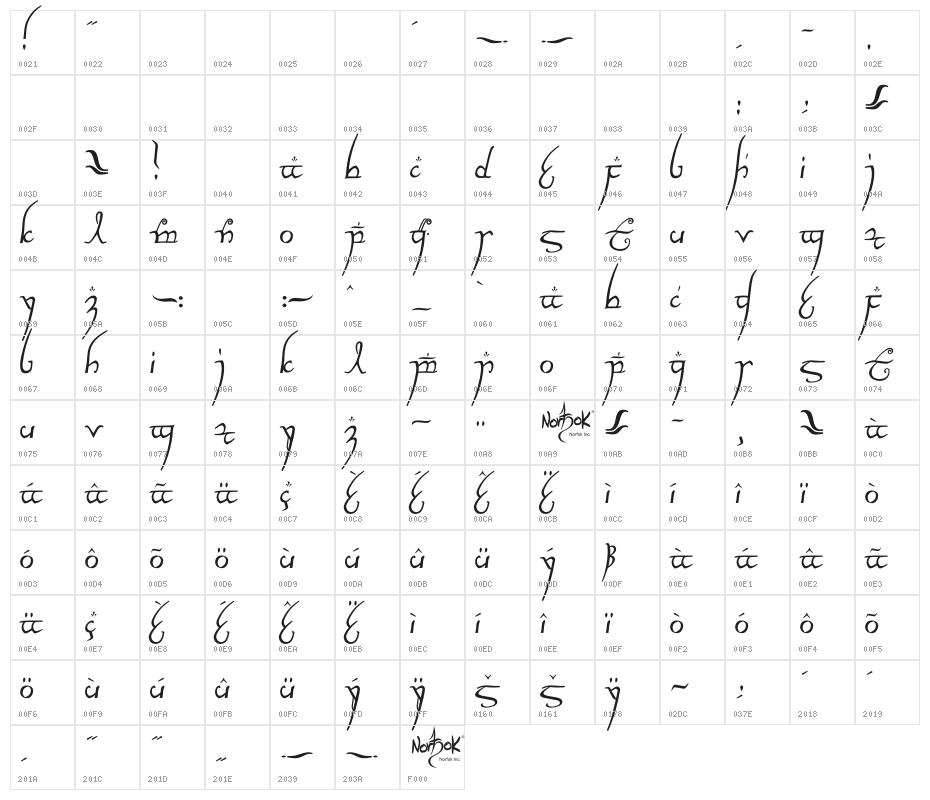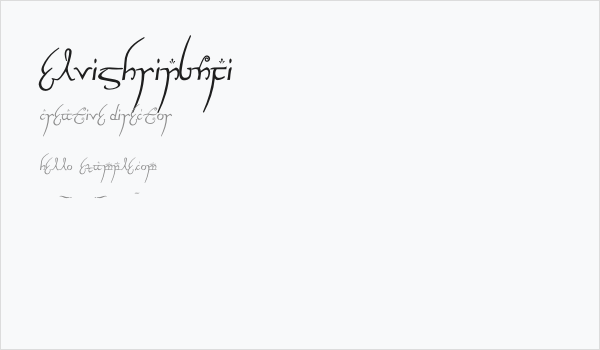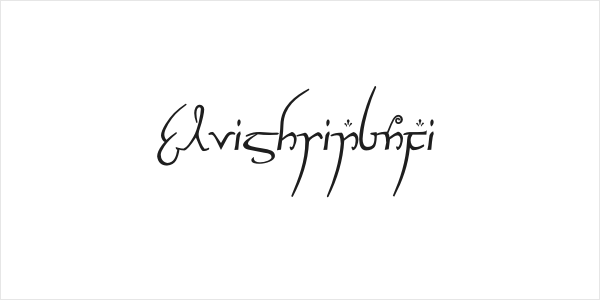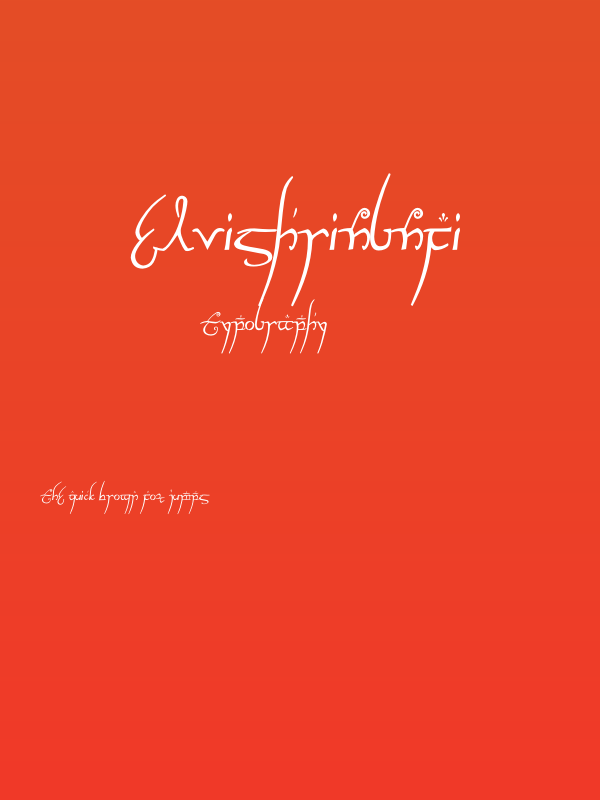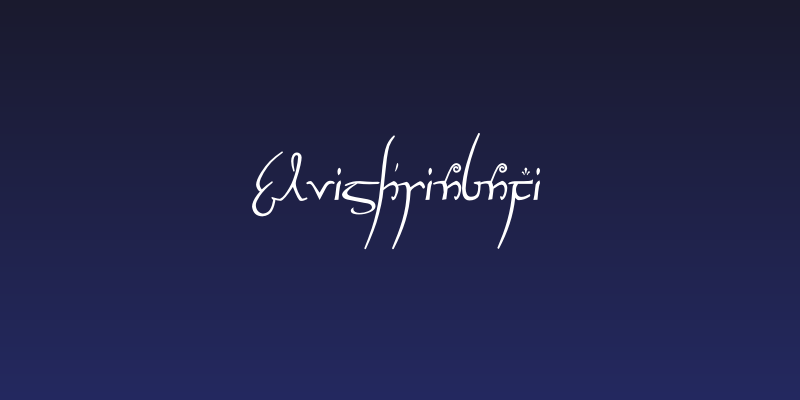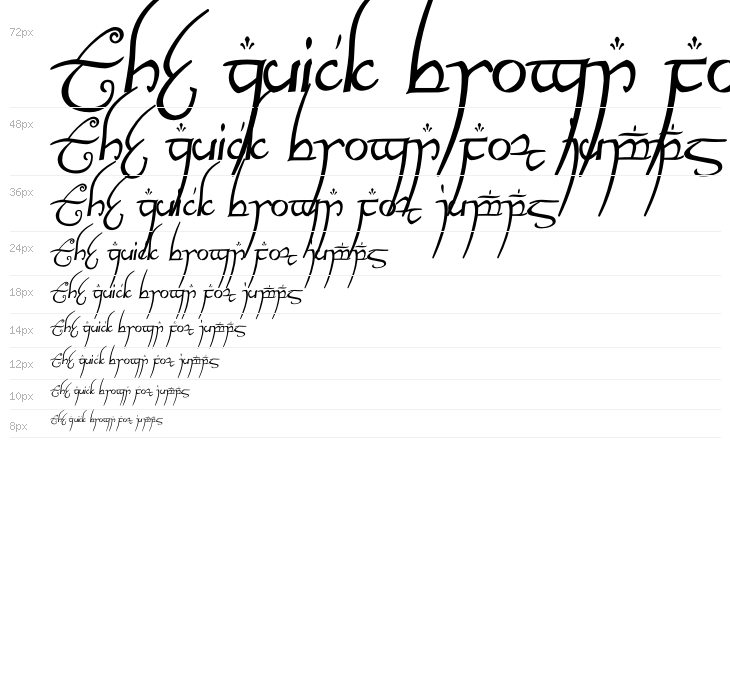
ElvishRingNFI Font
ElvishRingNFI Description
This font is a decorative script that evokes a sense of fantasy and mysticism, reminiscent of ancient runes or elvish writing. The characters are intricately designed with elegant curves and flourishes, giving them a unique and artistic appearance. The uppercase and lowercase letters blend seamlessly, maintaining a consistent style throughout. The numerals and special characters are equally ornate, featuring distinctive embellishments that enhance the overall aesthetic. This font is perfect for projects that require a touch of fantasy or a magical theme, such as book covers, game titles, or themed event invitations.
| Overall Style | Fantasy, Mystical, Decorative |
| Use Case | Logos, Headlines, Themed Invitations |
| Proposed Projects | Ideal for fantasy-themed book covers, game titles, and event invitations. |